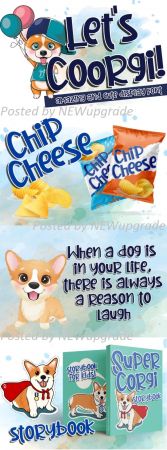
Let’s Coorgi! is a cute display font, designed to brighten up any school or kids project! This enchanting and colorful font will turn any creative idea into a true standout.